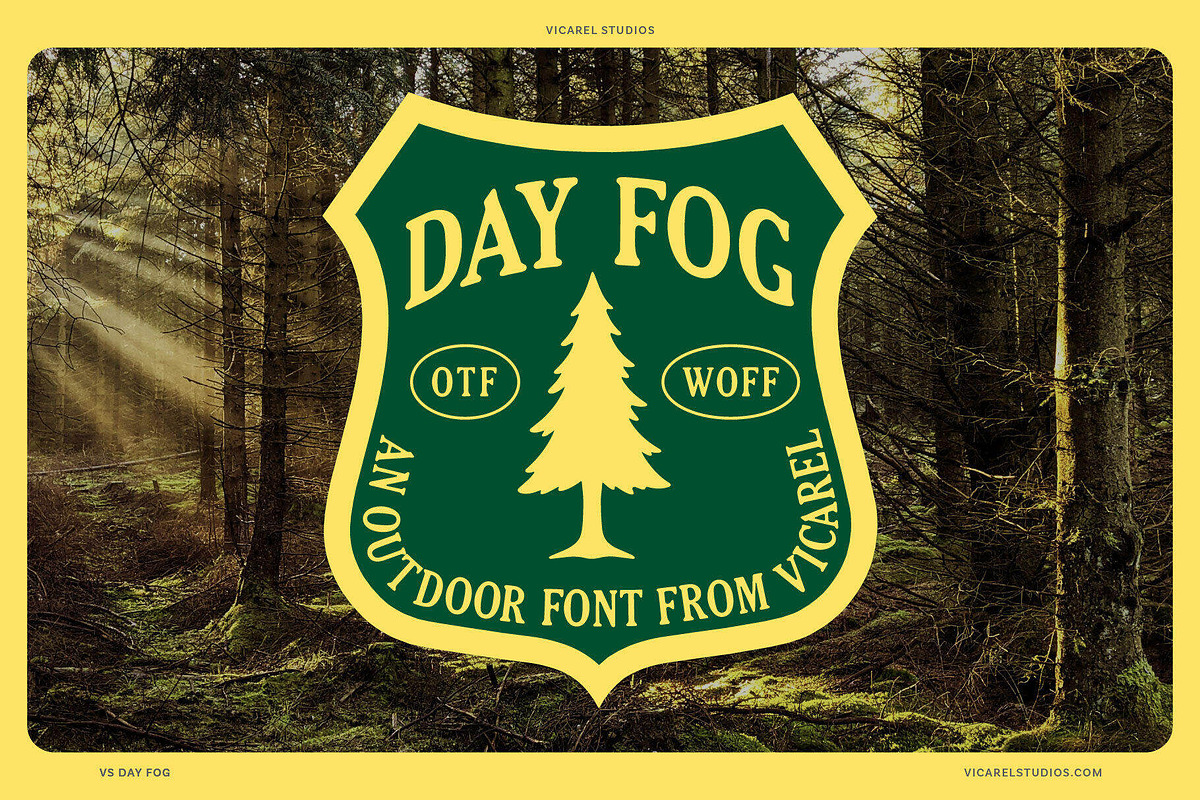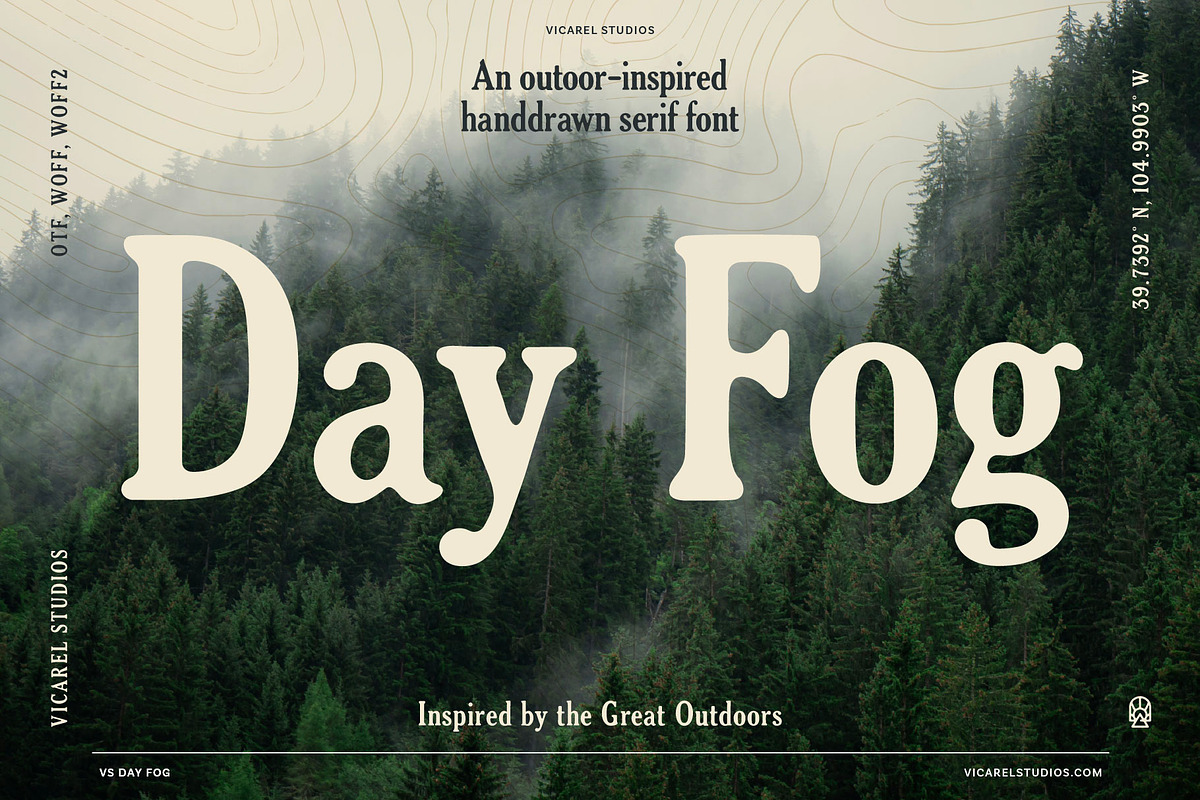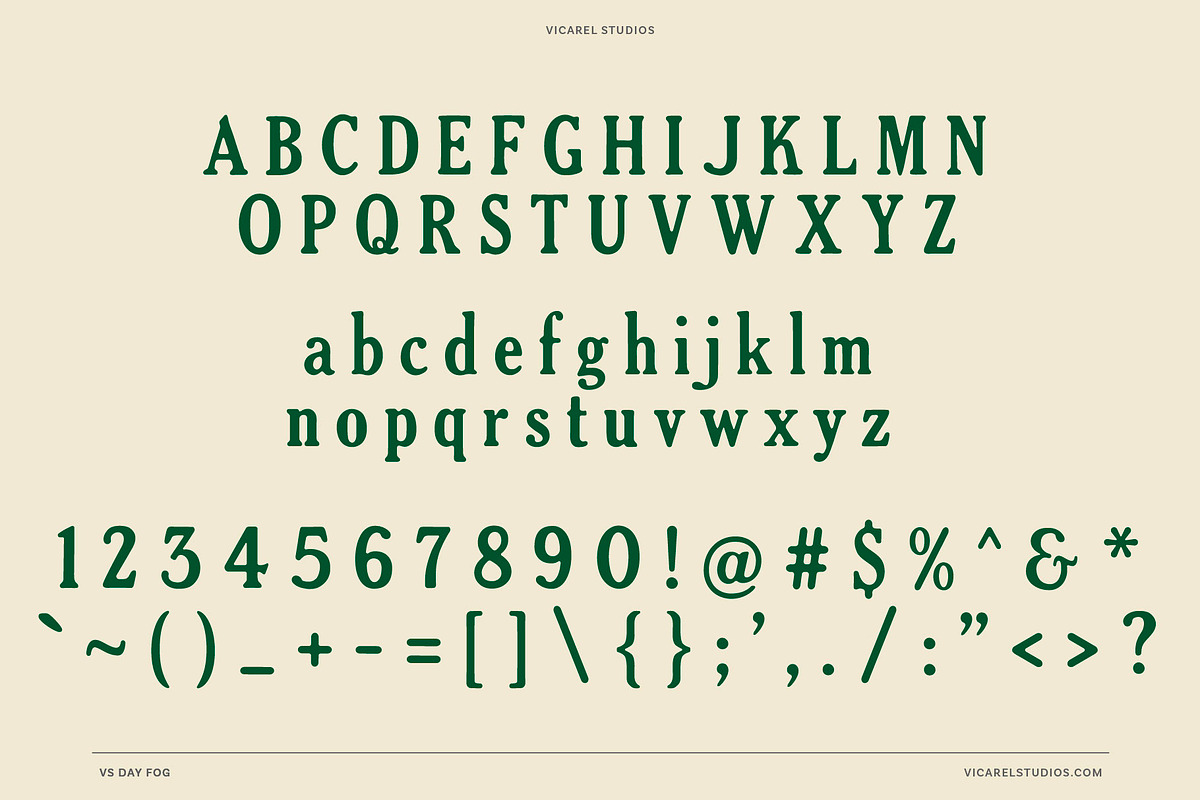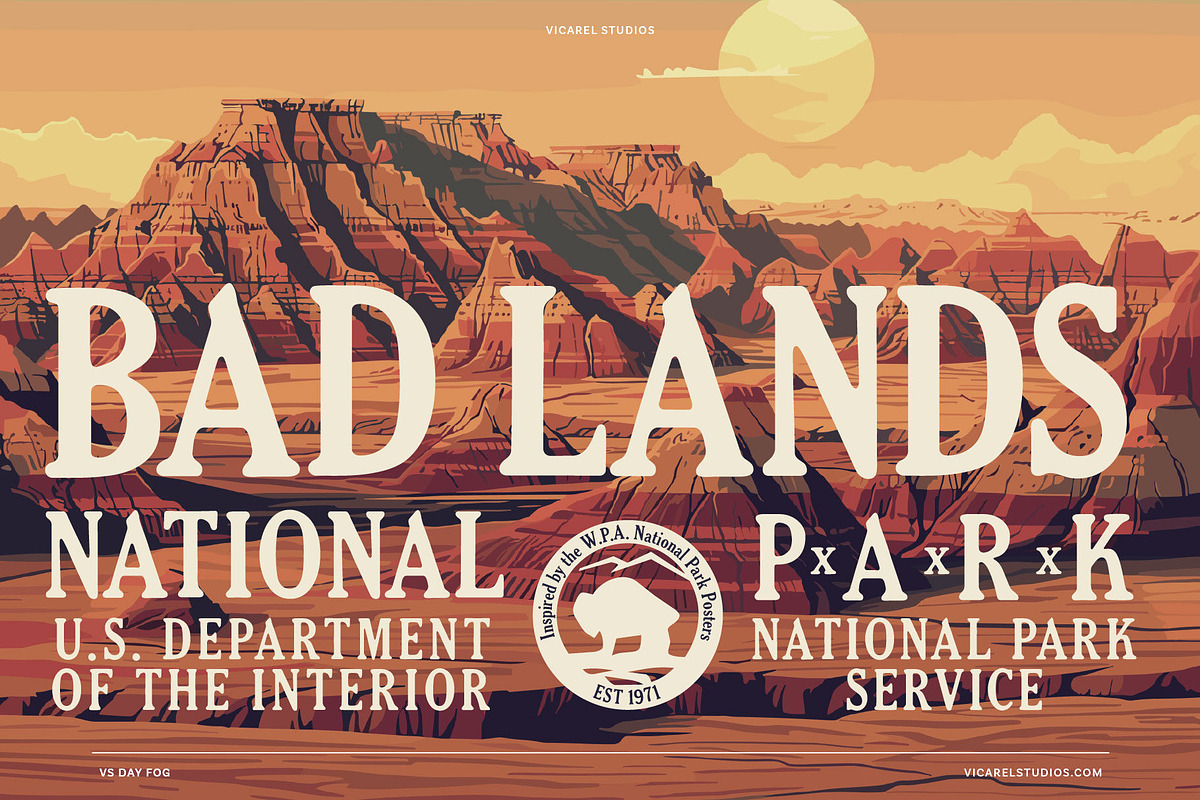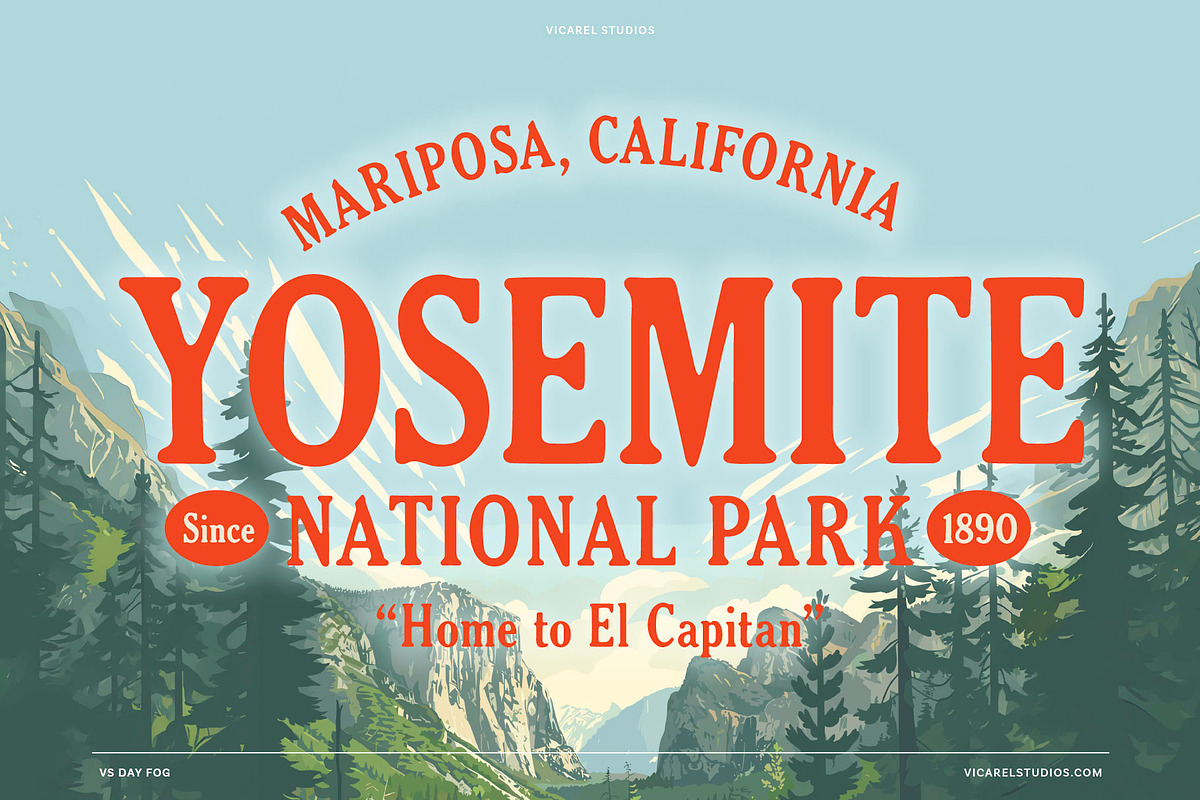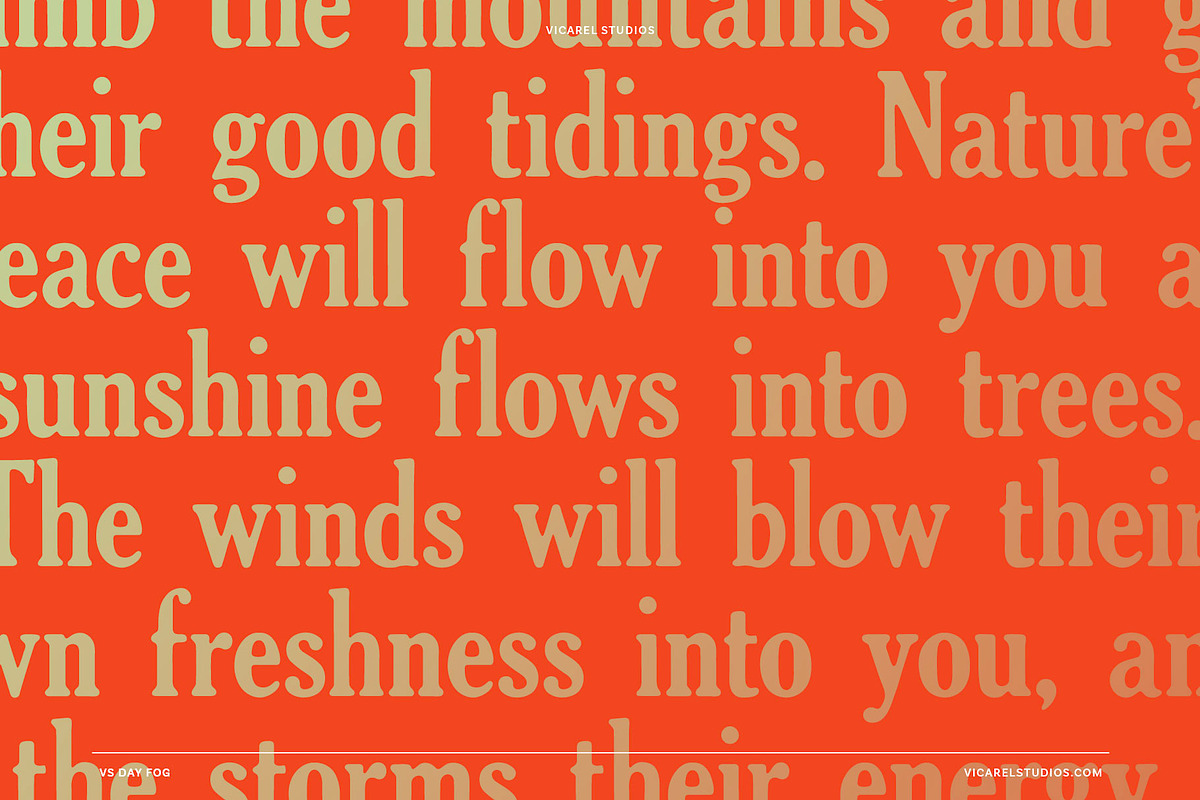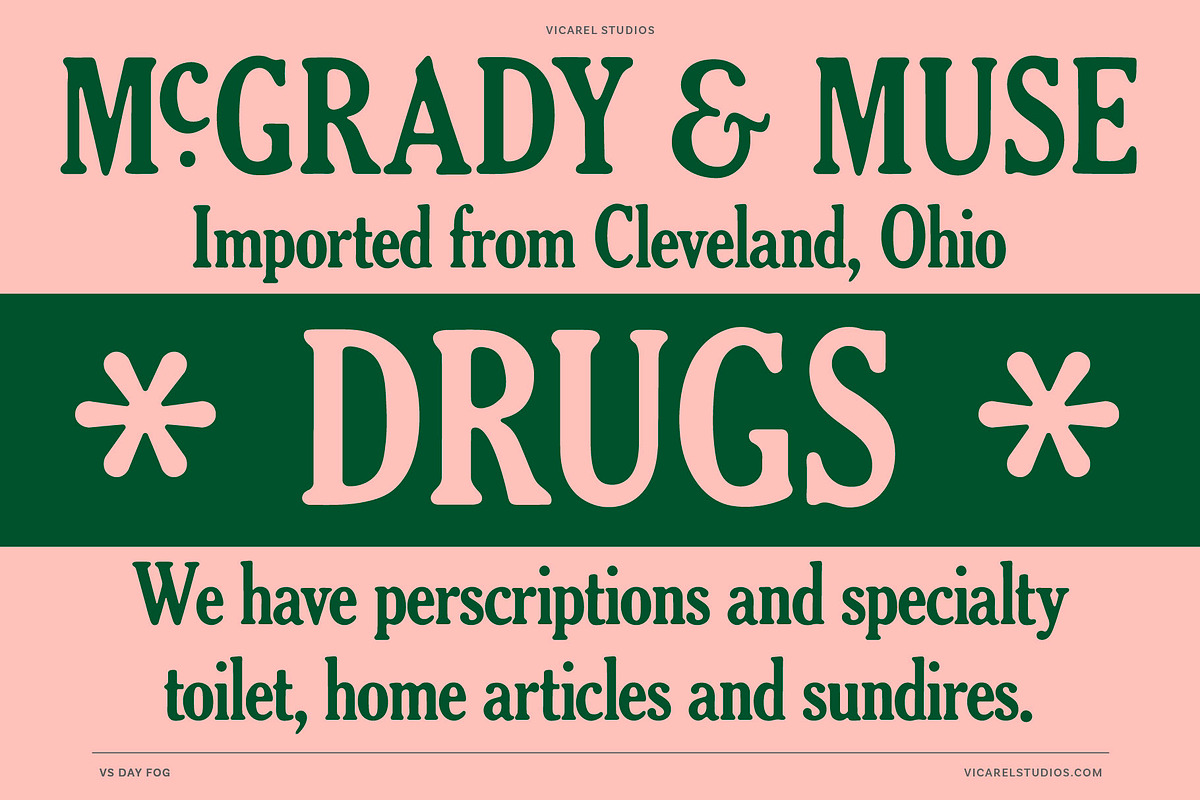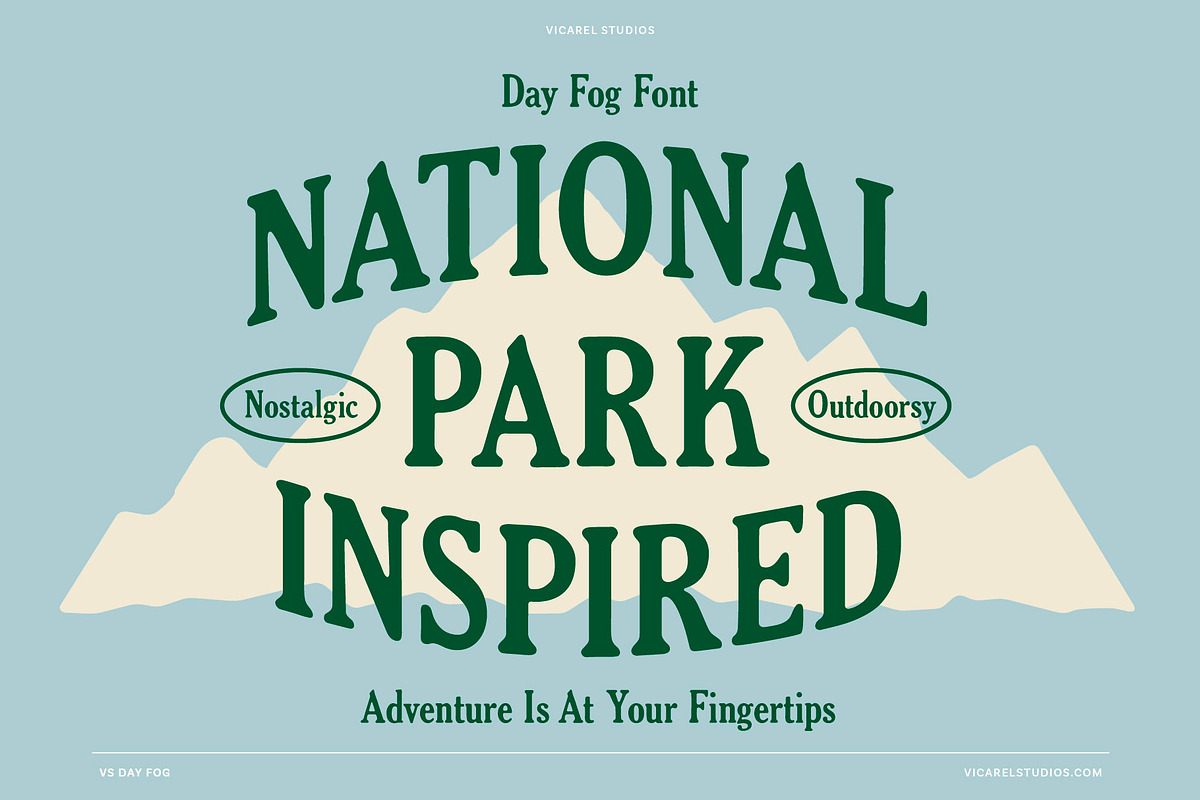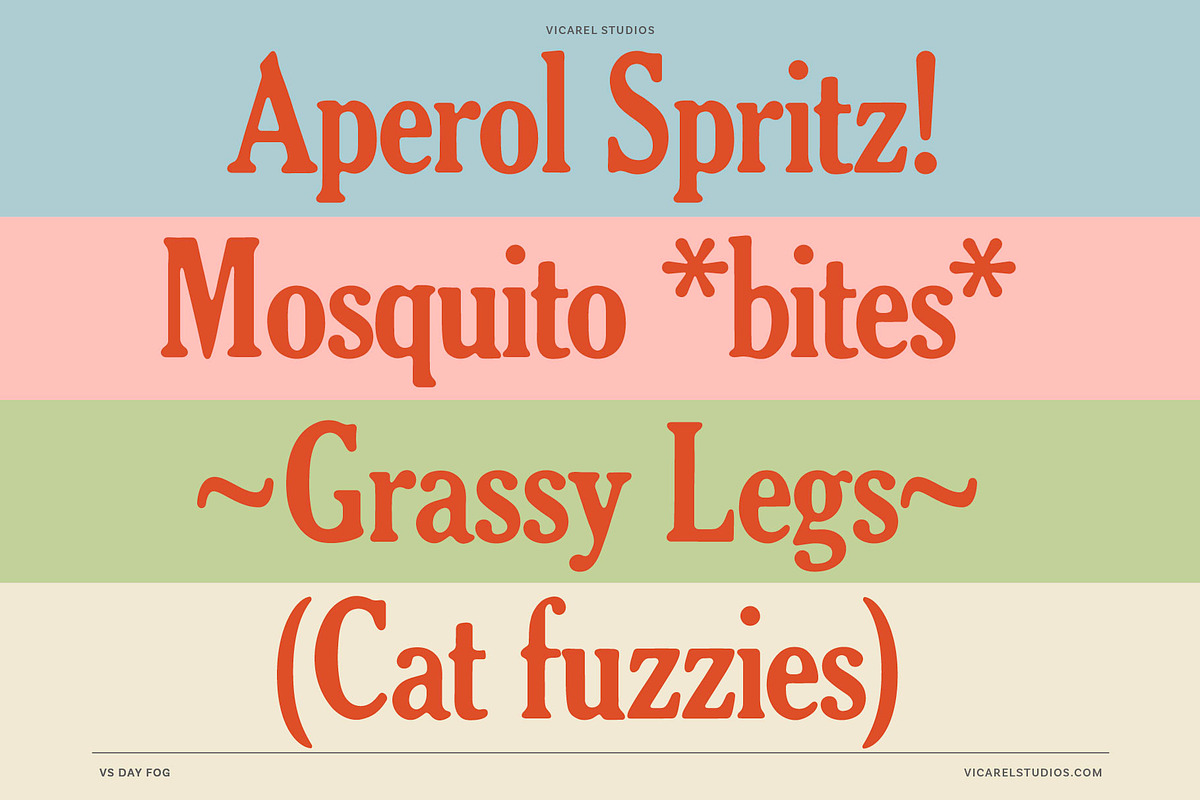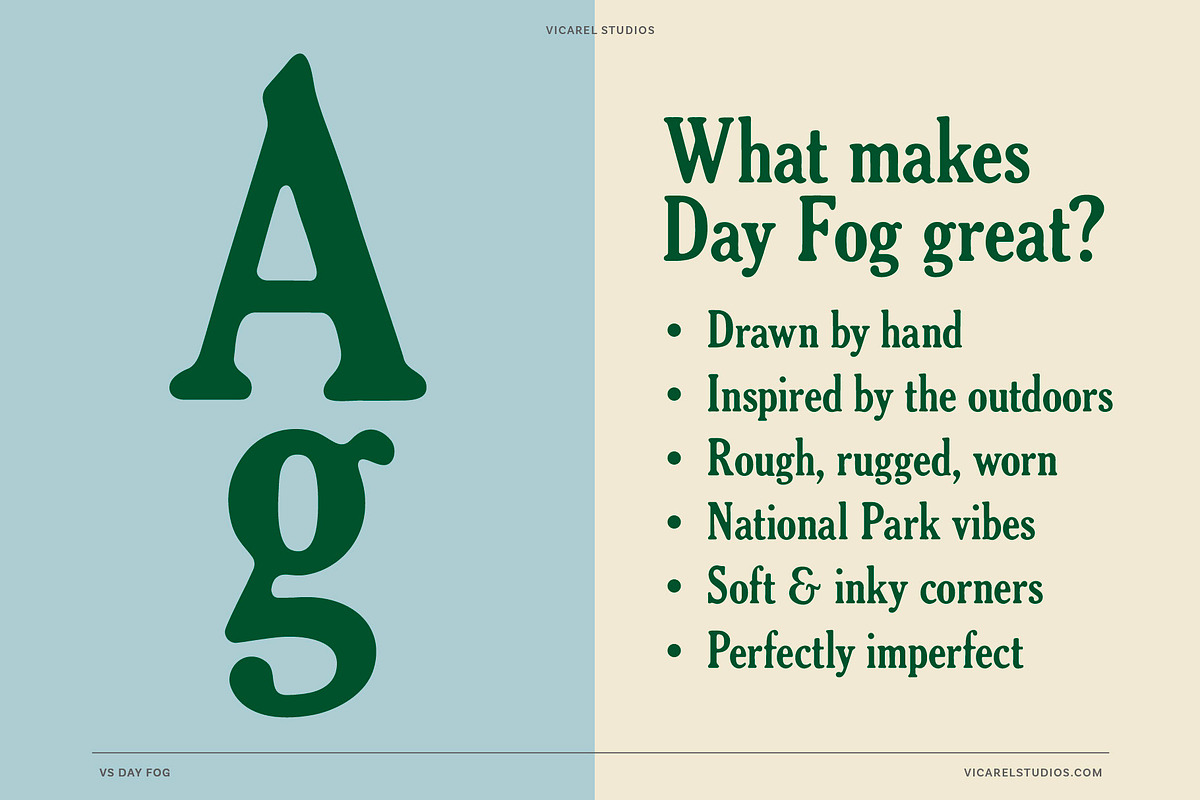
Day Fog – Hand drawn Vintage Serif
Day Fog is a hand-drawn display serif font inspired by vintage national park posters, old drug store signage, and the worn and natural lettering of the WPA era. We built this font for logo and packaging designers, apparel and merch design, and outdoor or vintage branding and design projects.
Day Fog is a semi-condensed, hand-lettered serif with a full uppercase, lowercase, numbers and punctuation set.
It's designed to look like type that was drawn by hand and left outside to weather over time – just like old signs and National Park signage. Each letterform was drawn with intentional softness: slightly raw edges, perfectly imperfect construction, and that worn-into-wood quality that makes hand-drawn type feel legitimately hand-drawn.
Many fonts of a similar style are all-caps and blocky, Day Fog is a bit taller, narrower, with a low x-height, giving a distinct look and comes with a full character set making it more versatile. It holds up as a logotype, works in mixed-case headlines, and pairs well with scripts and sans serifs.
What it's built for:
Logo and logotype design
Apparel and merch graphics
Outdoor, adventure, and lifestyle brands / packaging
Poster and editorial design
Badge, label, and signage design
Full uppercase and lowercase character set with punctuation and numbers
A few Ligatures